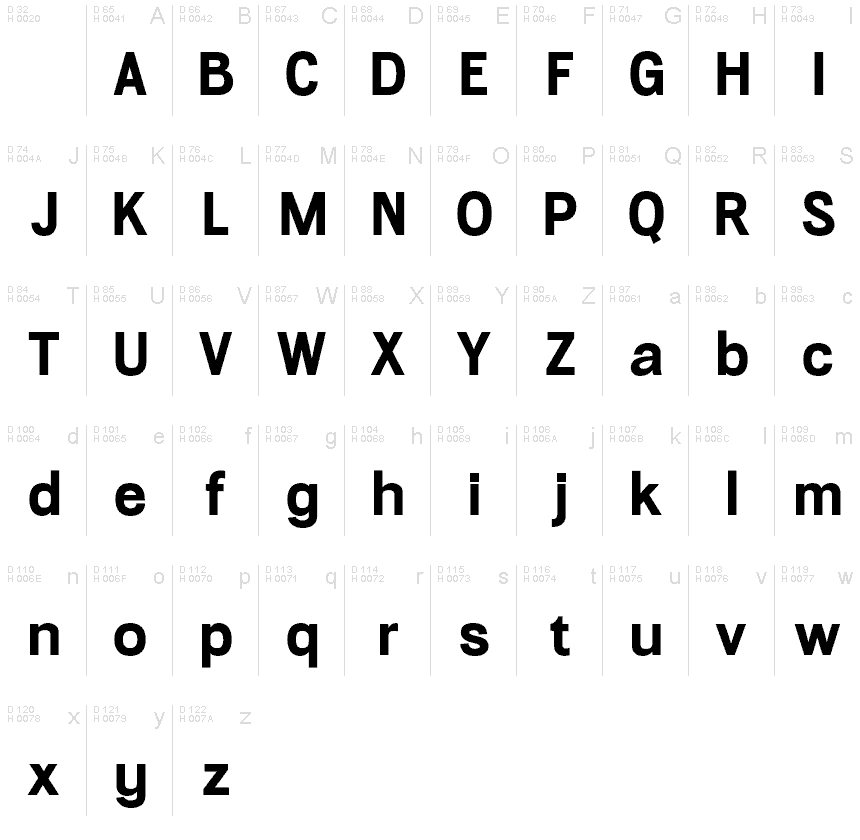
CS Legacy Regular Demo
CS Legacy font by Craft Supply Co. is a geometric font with sharp angles and precise edges. It mixes the classical with the modern, boasting great legibility for a pleasant reading experience. The stylish yet minimal appearance give it a professional tone that fits numerous design contexts when incorporated.